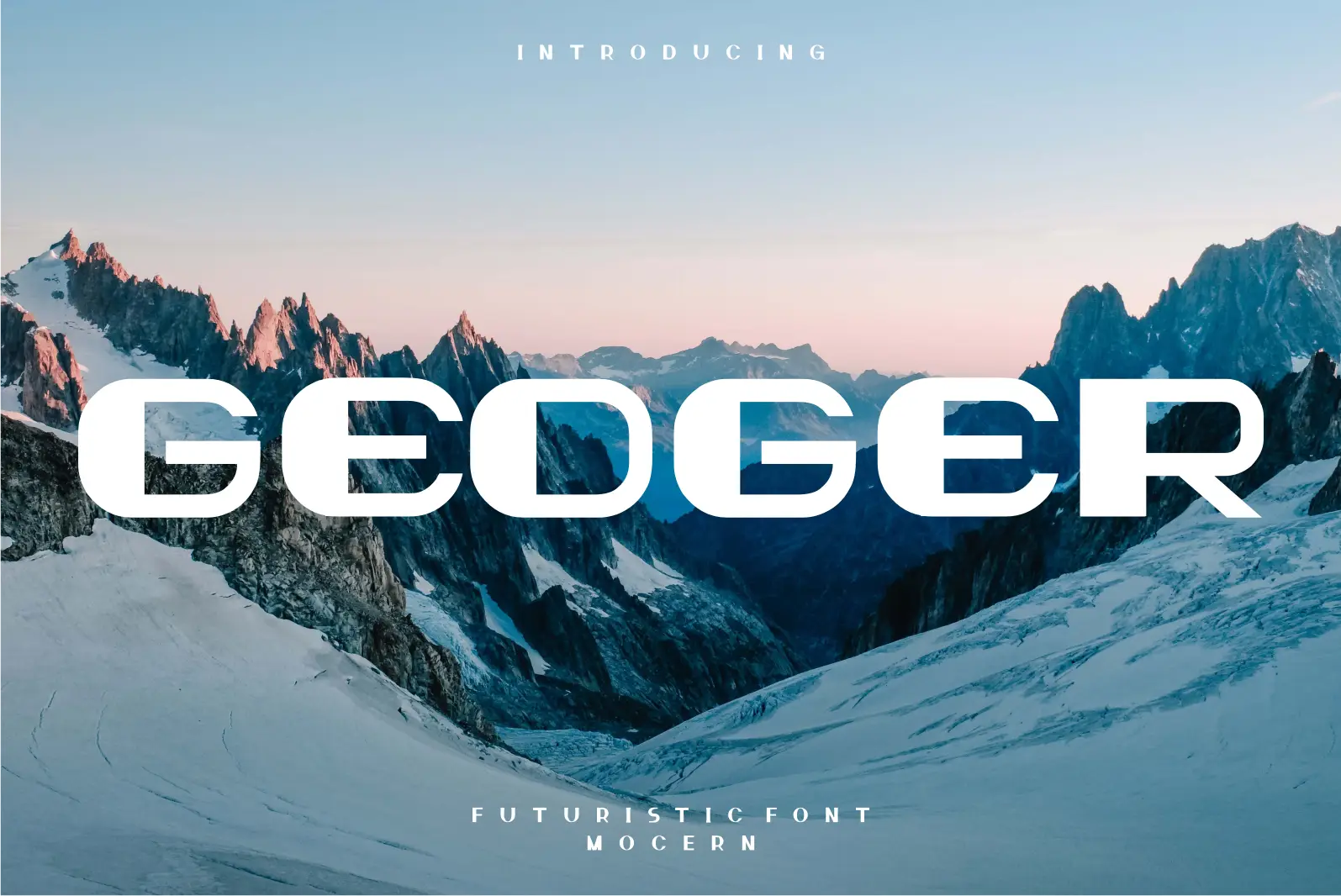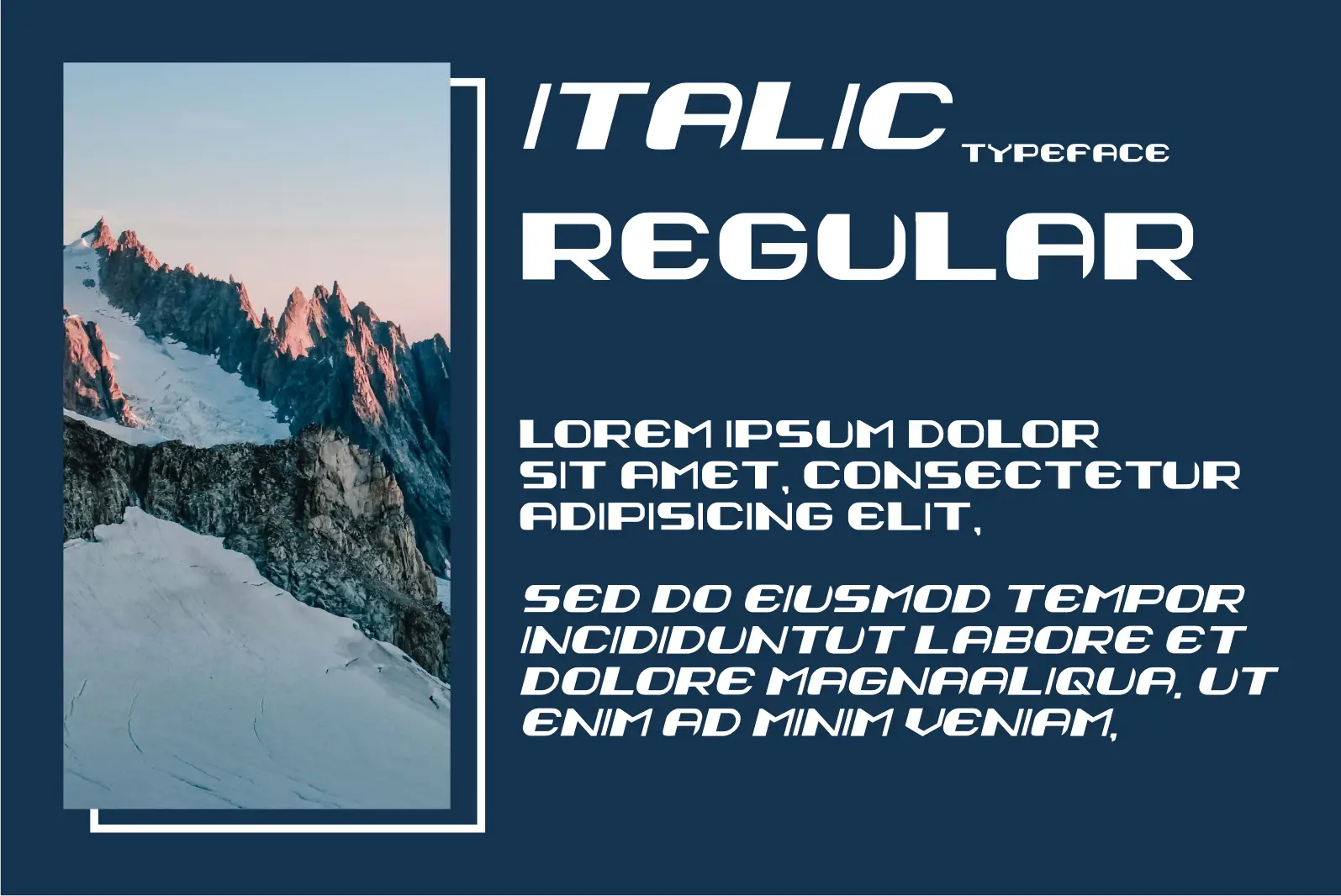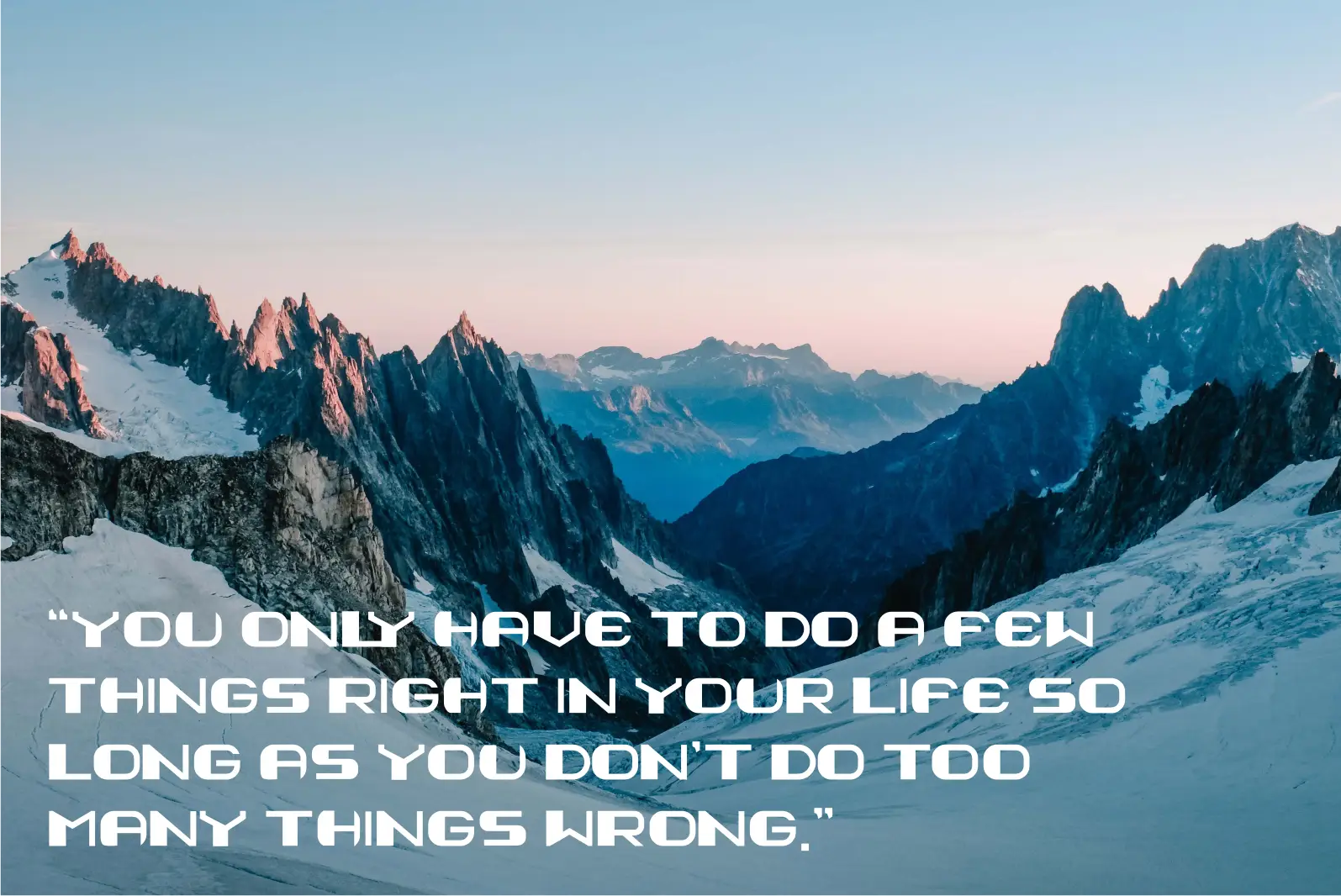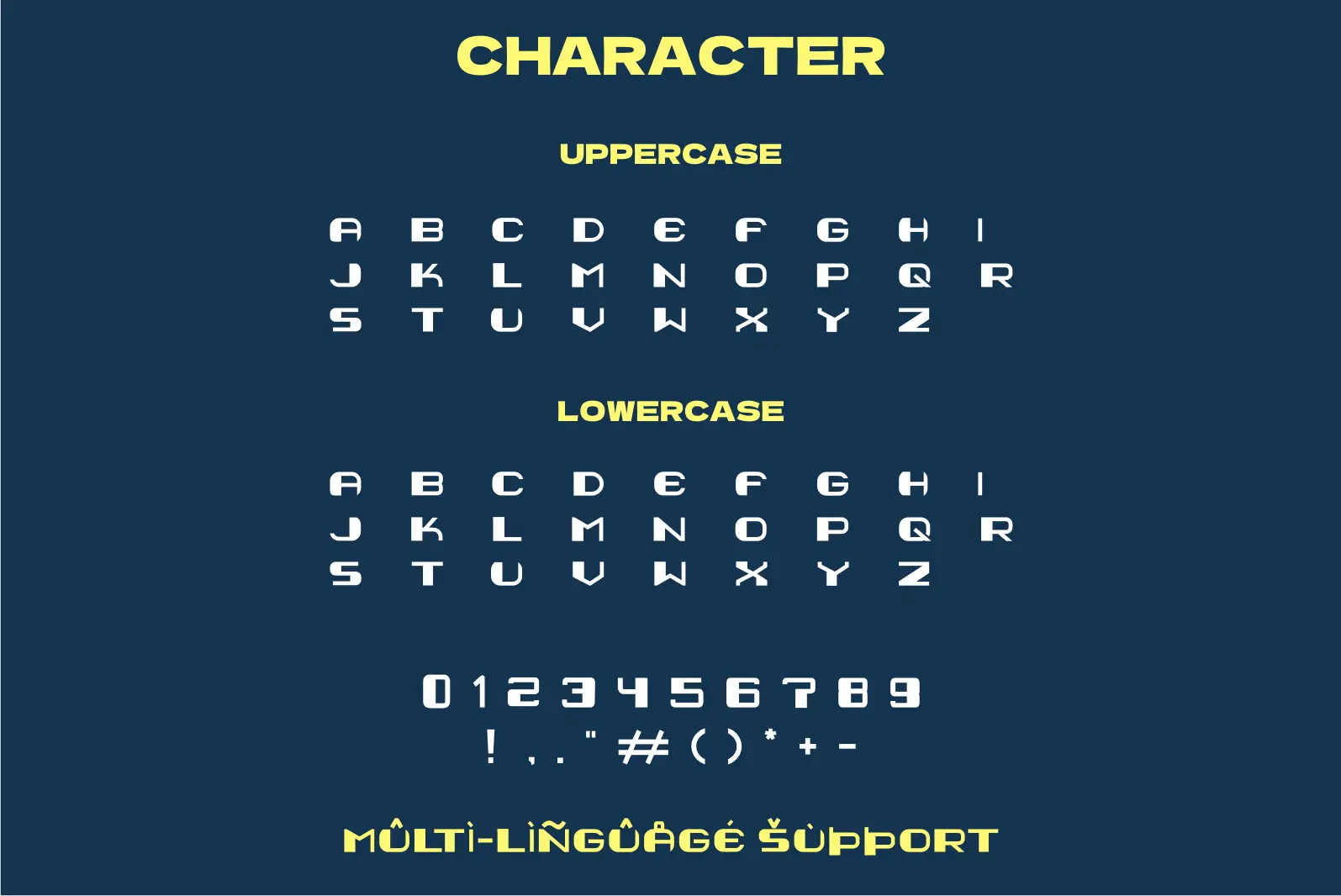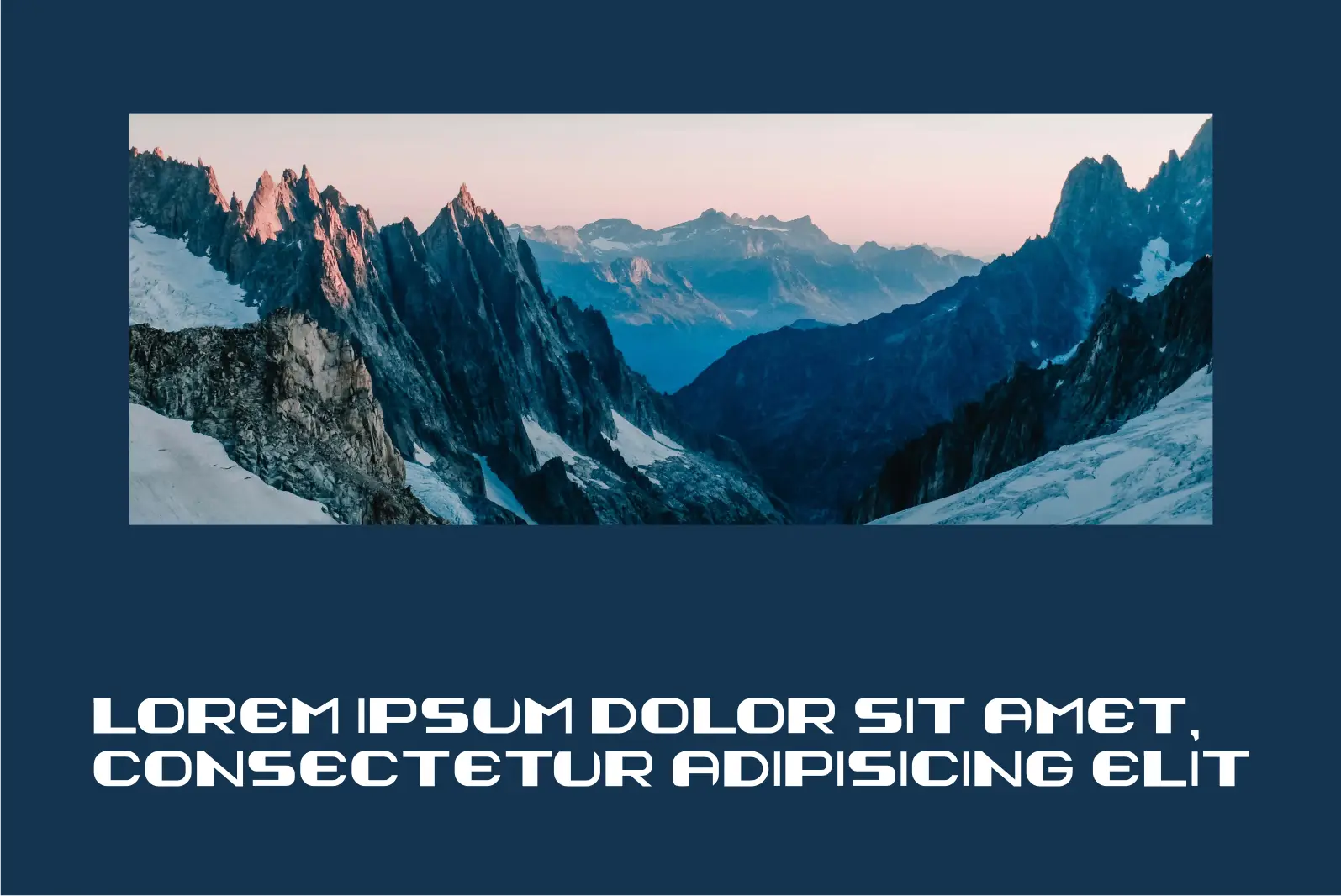
Geoger Display Font
The Geoger Display Font is a striking typeface designed to make a bold statement in any project. Its unique character shapes and modern aesthetic make it perfect for a variety of applications, from branding and logos to web and print designs.
• Distinctive display style
• Ideal for headlines, posters, and promotional materials
• Use in digital and print media to capture attention
• Pair with clean sans-serif fonts for a balanced look